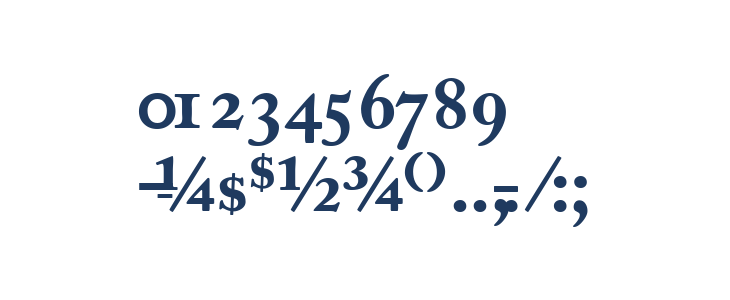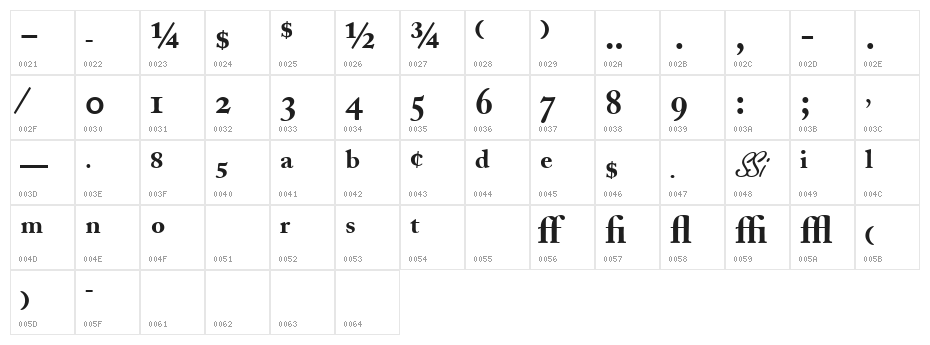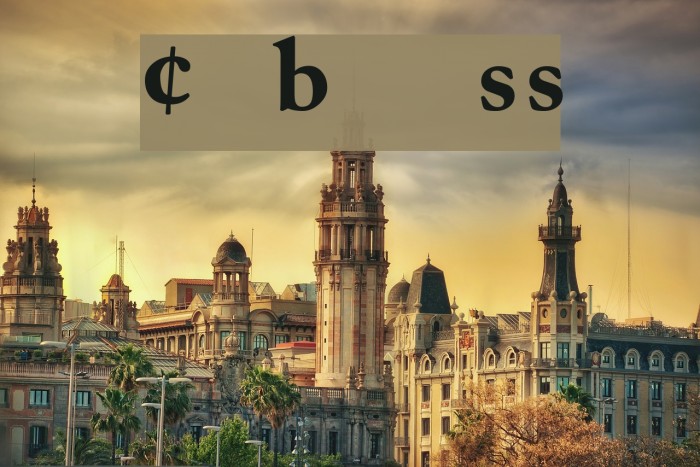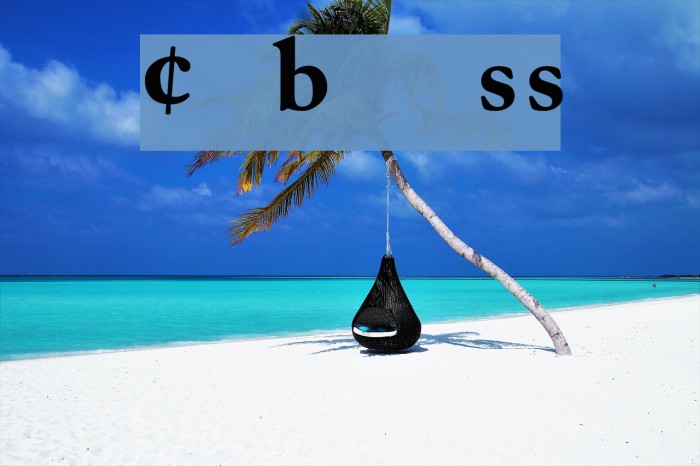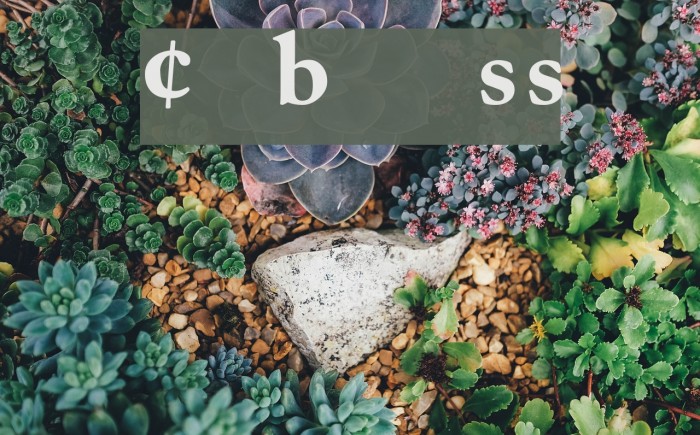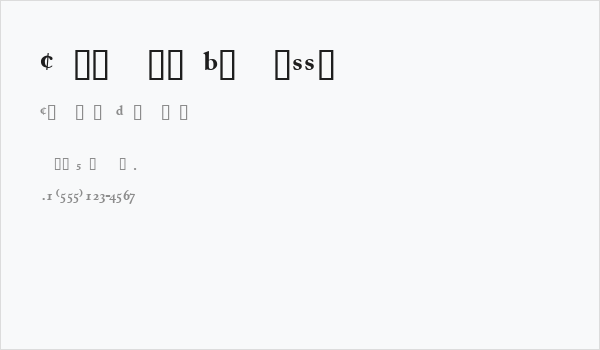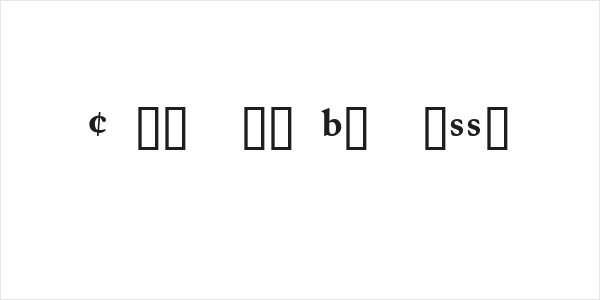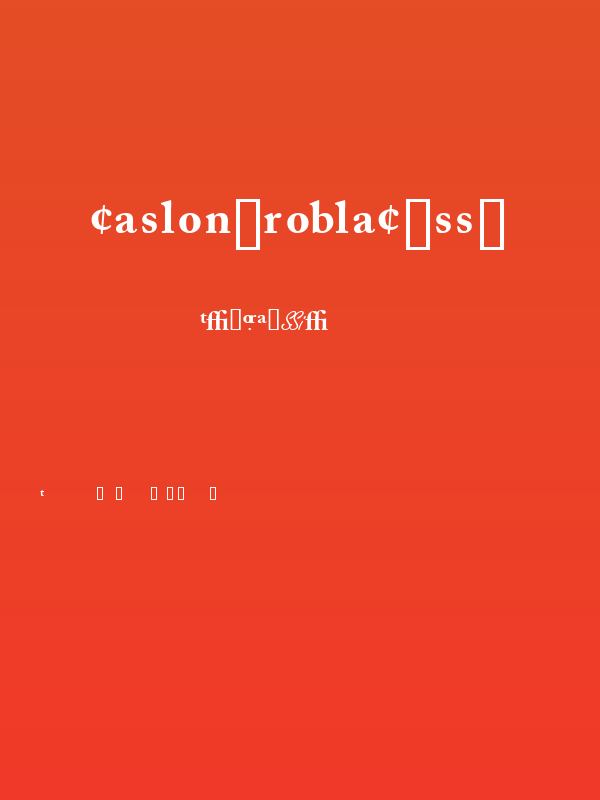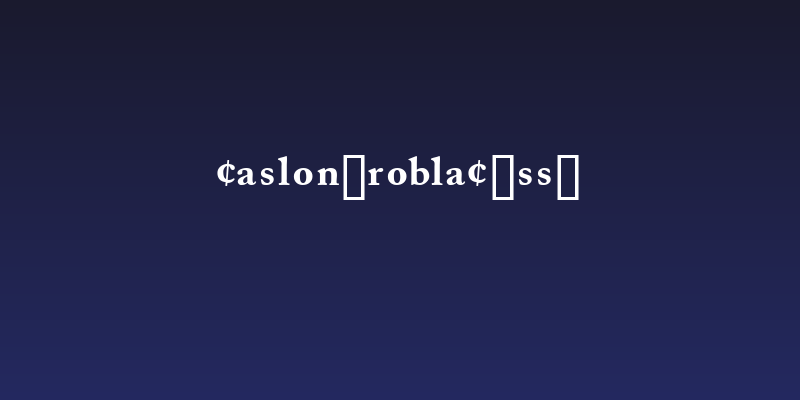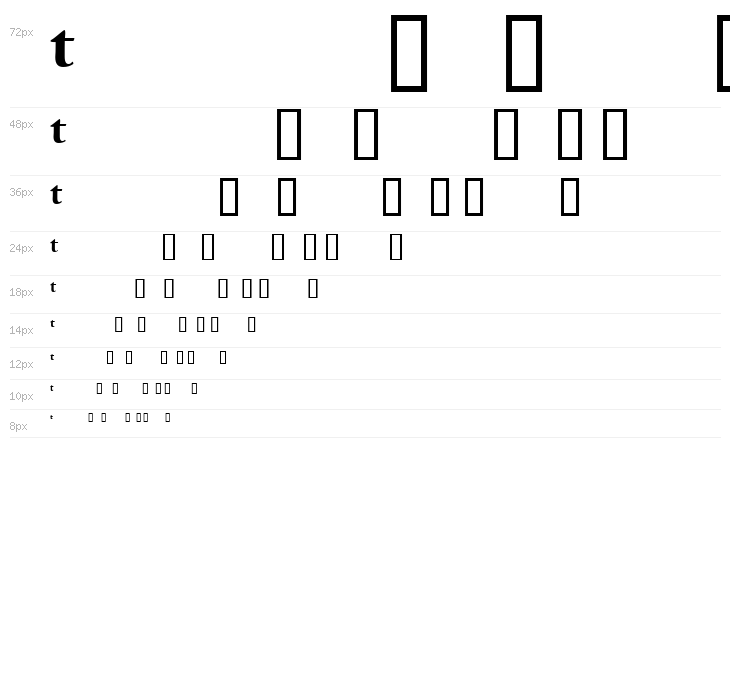
CaslonProBlackSSK Font
CaslonProBlackSSK Description
This font exhibits a classic serif style with strong, bold strokes and high contrast between thick and thin lines. The serifs are pronounced and slightly bracketed, giving it a traditional and authoritative appearance. The characters are well-defined, with a slight curvature that adds elegance. The uppercase letters are stately and commanding, while the lowercase letters maintain readability with a touch of sophistication. The numerals are consistent with the overall style, featuring clear and distinct forms. Special characters are integrated seamlessly, maintaining the font's cohesive look.